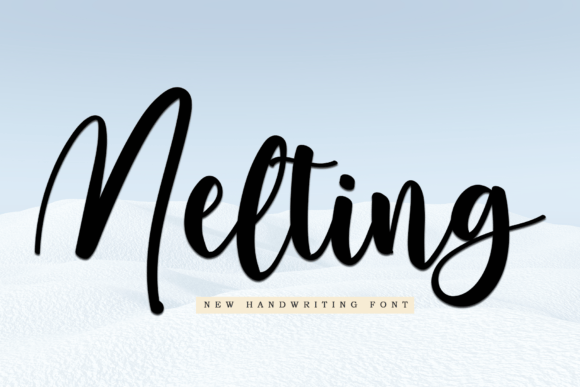
Introducing the mesmerizing "Melting Font," the perfect script typeface that will add a touch of magic to your Christmas projects. Created by the talented Black line, this font is specifically crafted to enhance your visual artistry and bring out the true spirit of the holiday season.
With its clean lines and modern design, Melting Font offers a unique and captivating touch to any creative endeavor. Whether you're working on photography branding, watermarking, or designing your website, this font will effortlessly elevate your projects to new heights.
Let Melting Font be your secret weapon to make your Christmas creations truly stand out. Its sleek aesthetic and versatile nature make it the go-to choice for anyone looking to make a lasting impression. The beautifully crafted curves and stylish strokes of this font will add a touch of elegance and sophistication to your designs, ensuring that they are remembered and cherished.
Imagine your Christmas party invitations adorned with the enchanting swirls of Melting Font, instantly setting the mood and capturing the attention of your guests. The festive season is all about creating unforgettable memories, and this font will help you achieve just that.
With its abundance of emotional words and creative reasons, Melting Font captures the essence of the holiday spirit. Its unique features allow you to infuse your designs with warmth, joy, and excitement, bringing them to life like never before. From greeting cards to festive banners, this font will make every piece of your Christmas collection truly memorable.
Don't settle for ordinary fonts when you can have the best font to use for Christmas. Melting Font is here to add that extra sparkle to your projects and make them truly shine. Its keyword-rich design ensures that your creations will be easily discoverable by users looking to buy.